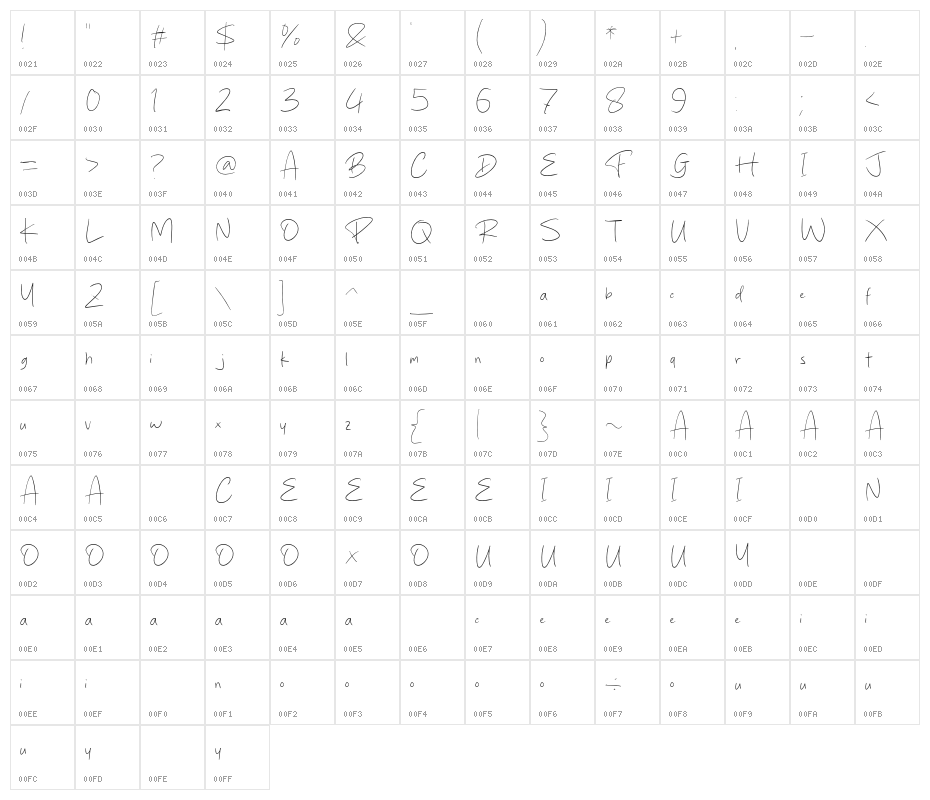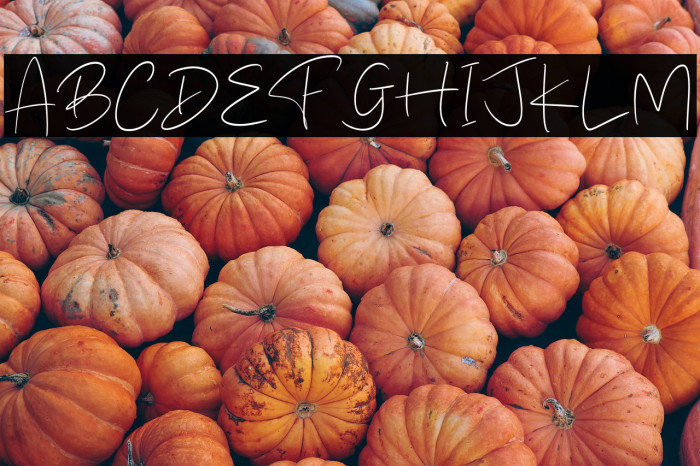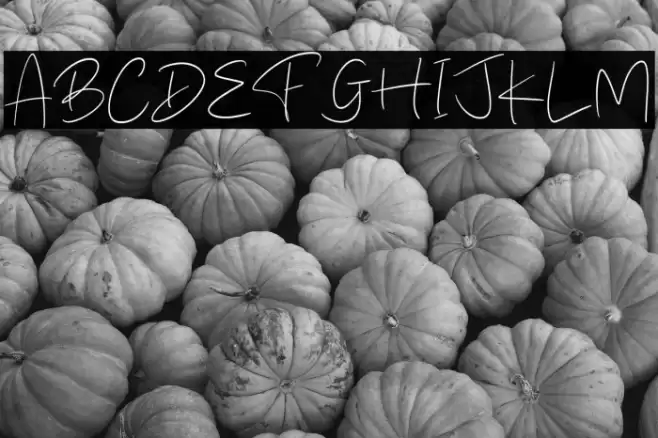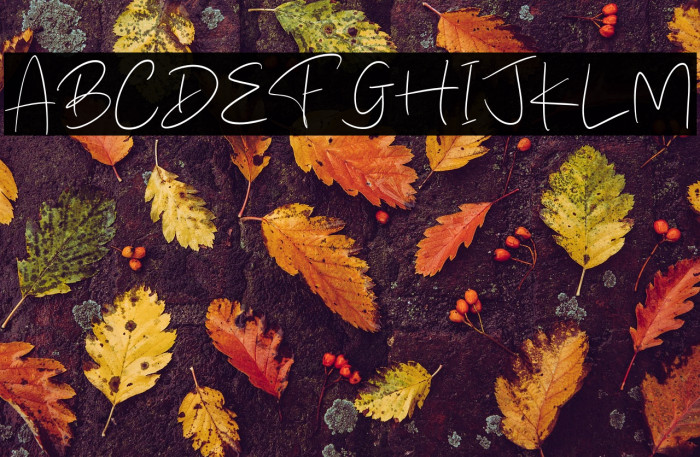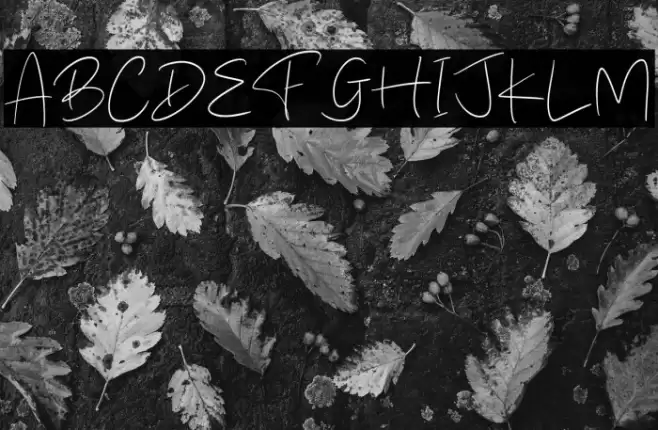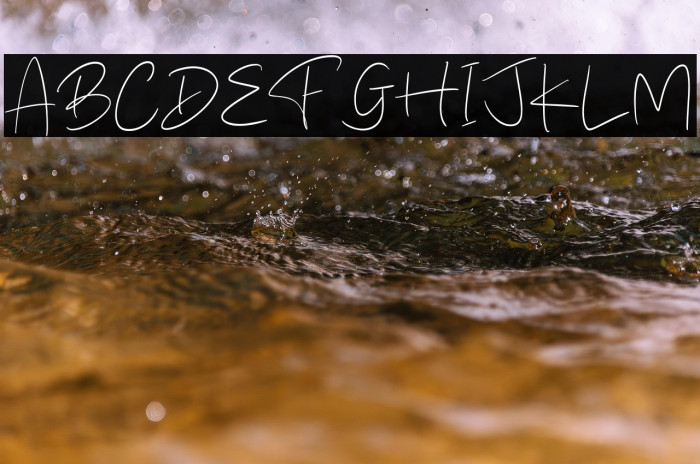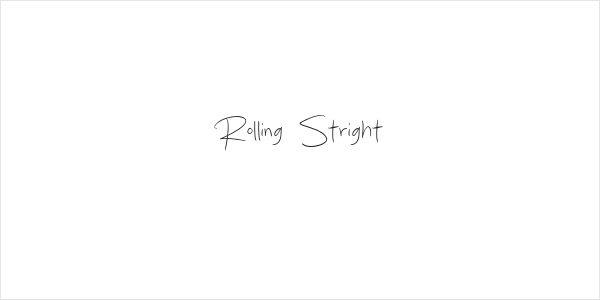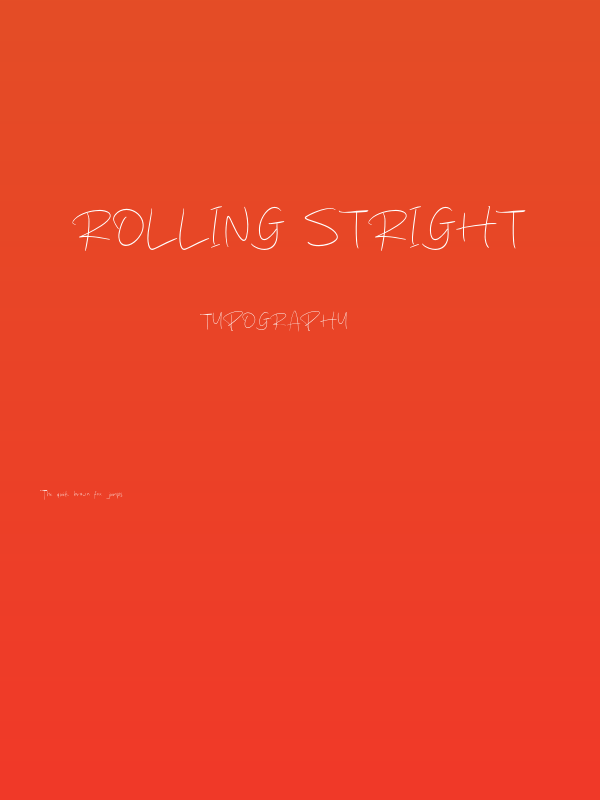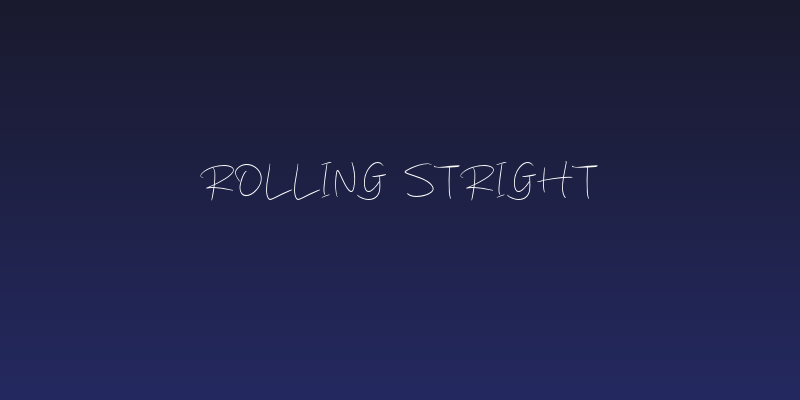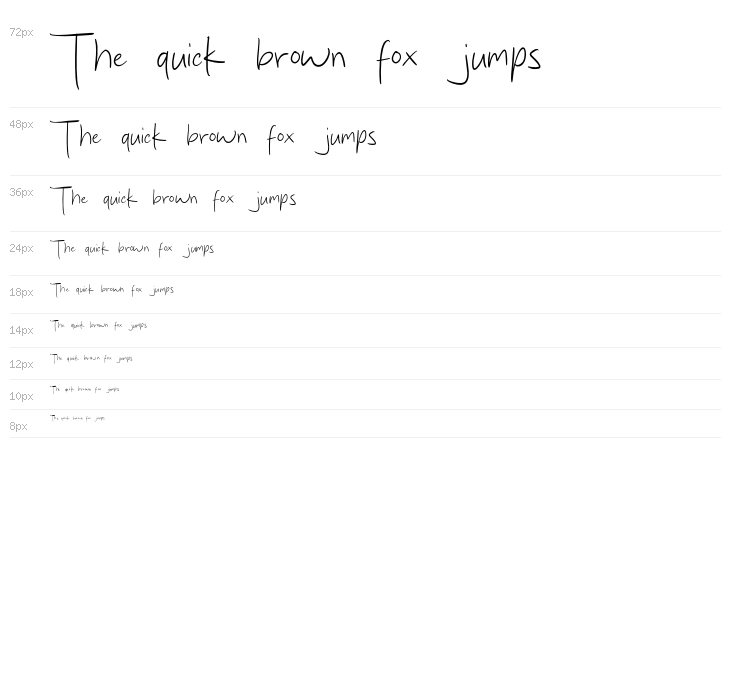
Rolling Stright Font
Rolling Stright Description
This font features a casual and handwritten style, characterized by its fluid and organic letterforms. The strokes are smooth and slightly irregular, giving it a personal and informal touch. The uppercase letters are tall and slightly narrow, while the lowercase letters maintain a consistent flow with rounded edges. Numbers and special characters follow the same handwritten aesthetic, providing a cohesive look across all elements. The font's overall appearance is approachable and friendly, making it suitable for projects that require a personal or creative touch.
| Overall Style | Casual, Informal |
| Proposed Projects | Ideal for greeting cards, personal branding, creative projects, and informal invitations. |